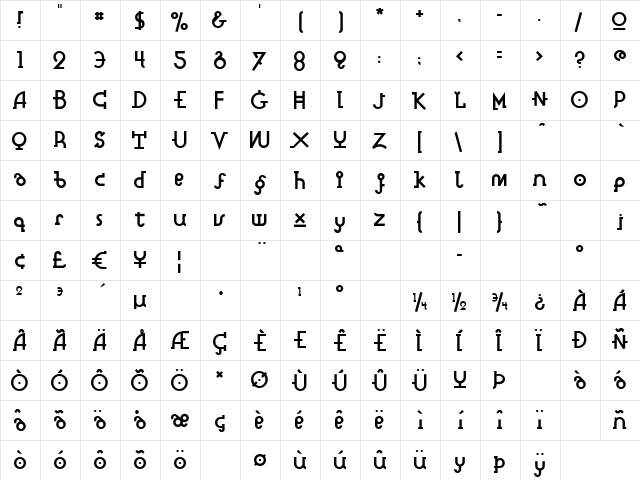
Cattlebrand Regular
Design Context for Cattlebrand Typeface
Cattlebrand offers clean, dependable letterforms without strong stylistic allegiance, making it a practical choice for designers who need flexibility.
Pro Tip: Use Cattlebrand in both headline and body roles to test its range before committing to a single application.